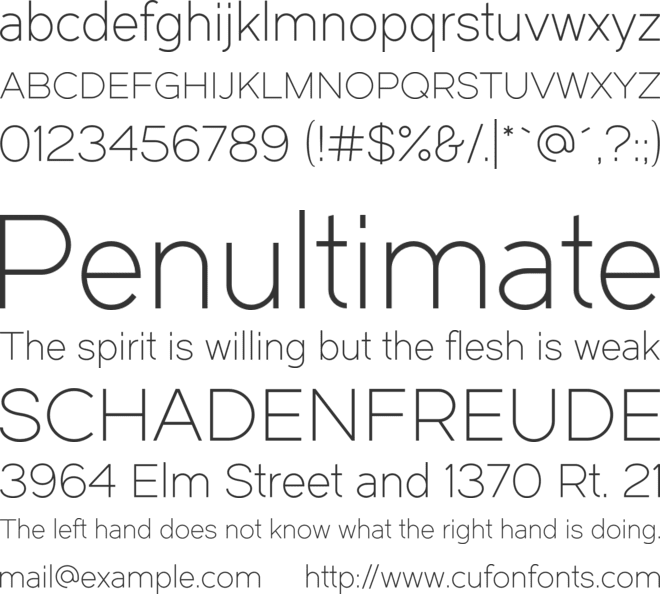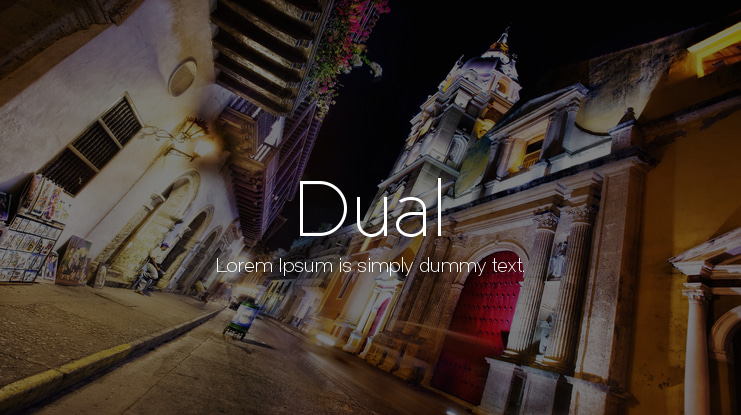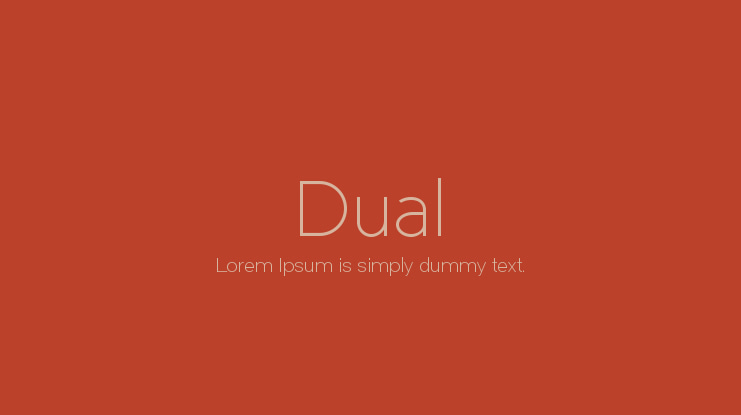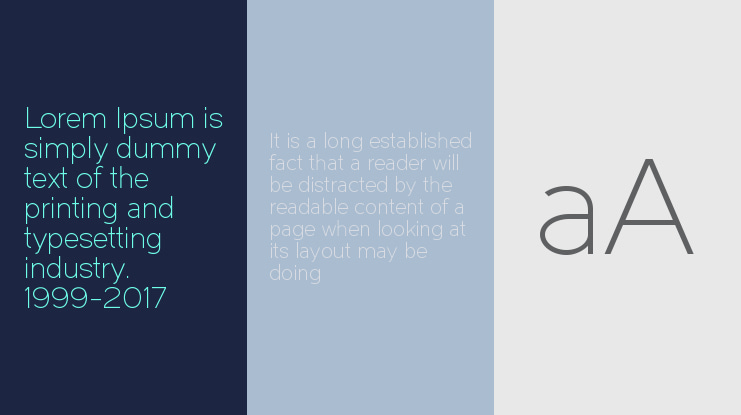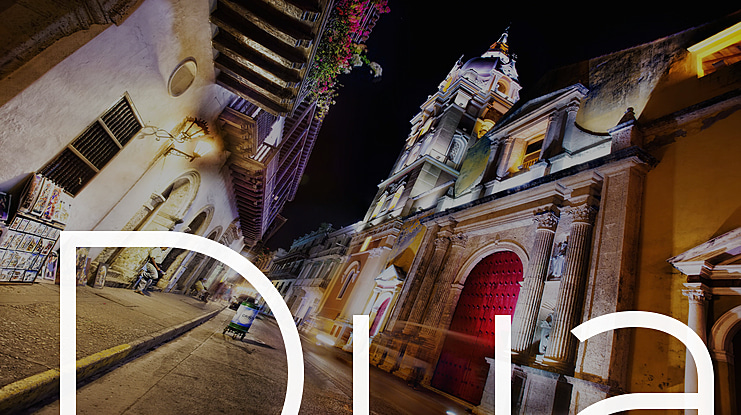
Dual Font
DUAL is a full width sans-serif typeface with an experimental side. Its straight lines and 90 degree angles give it a very geometric feel without hindering its legibility. There are three weights available right now, 100, 300 and 600. An additional 3 weights will be released later this year to complete the family (200, 400 and 500).
The idea behind DUAL has been brewing for quite some time, and though there has been many âexperimentalâ released in the past, it does have its unique features. For starters, it is a fully usable and legible font in its original state. Also, its 251 alternate glyphs and 10 stylistic sets are, of course, its main attraction making DUAL a very versatile typeface for any user, from the casual designer to the hardcore artist. Finally, it has extensive additional language support for the Americas and parts of Europe.